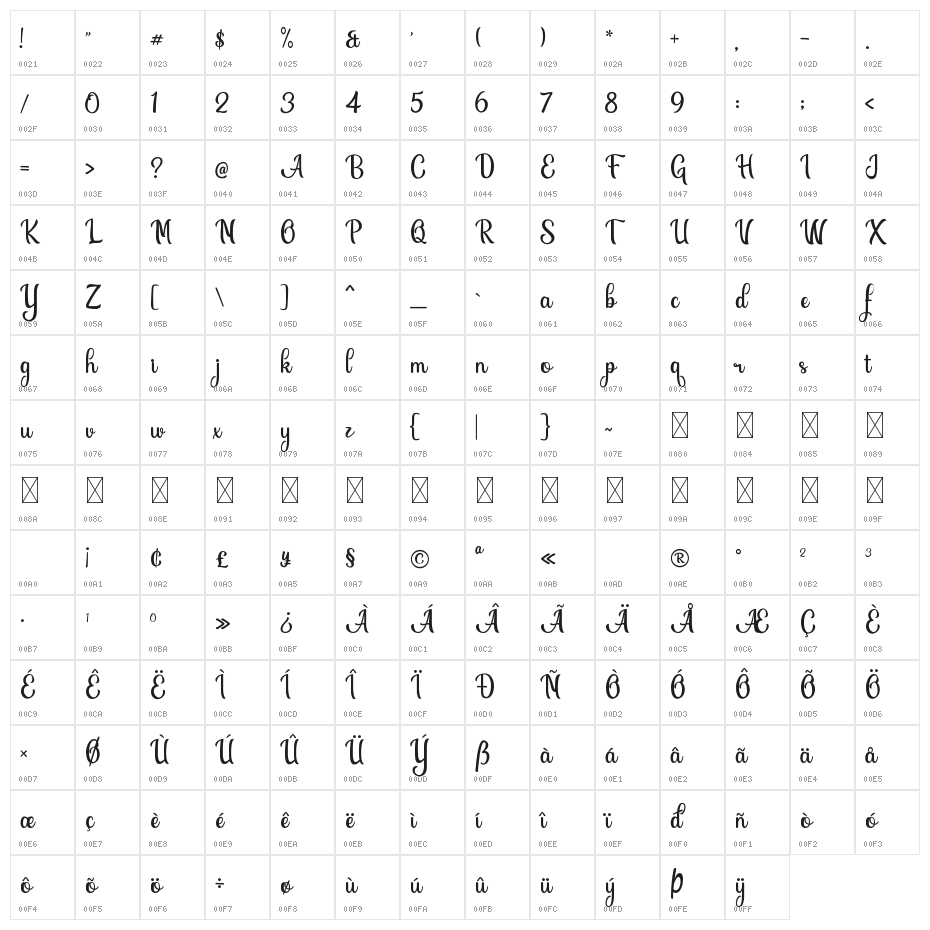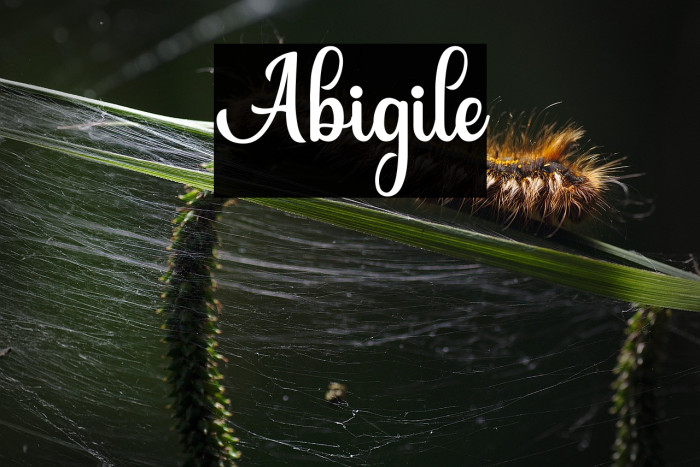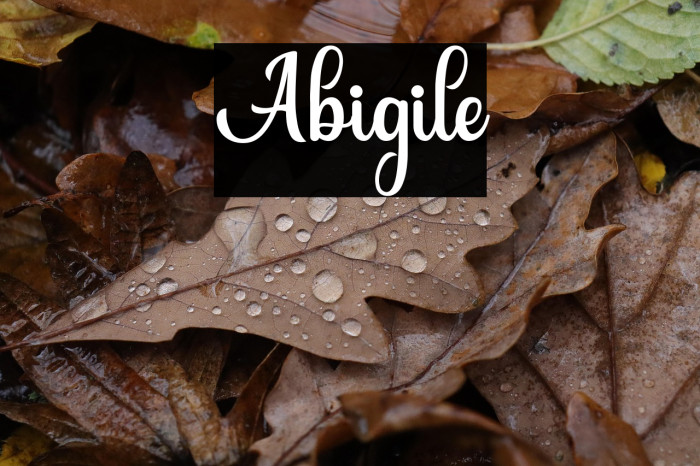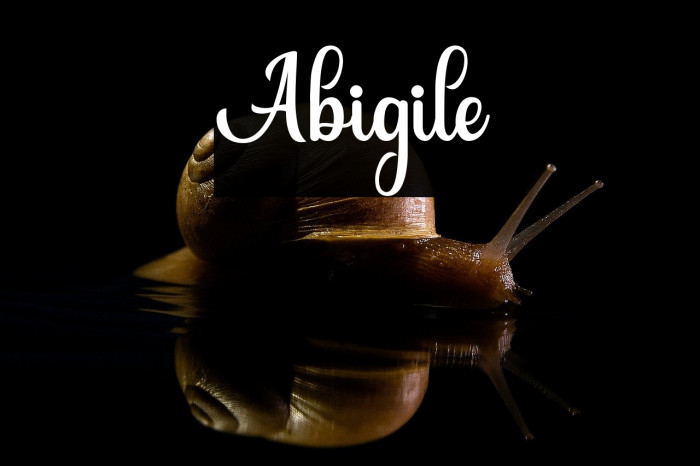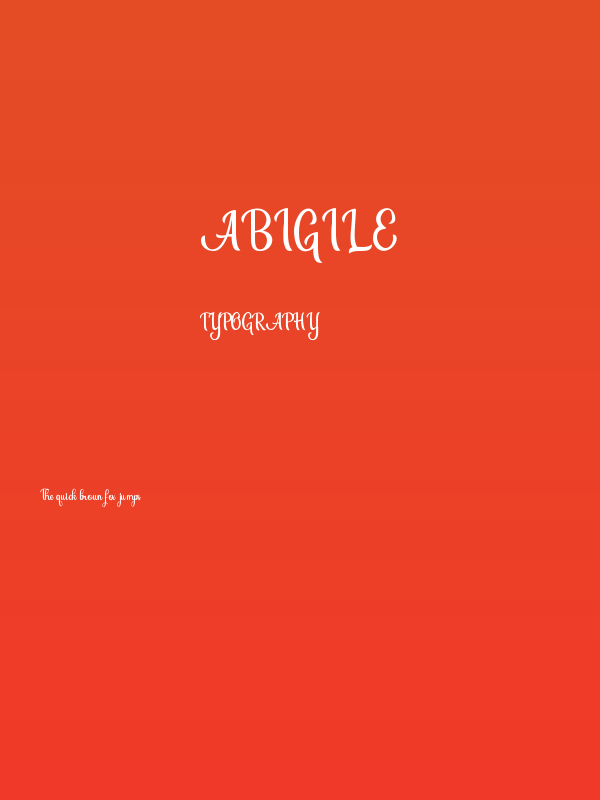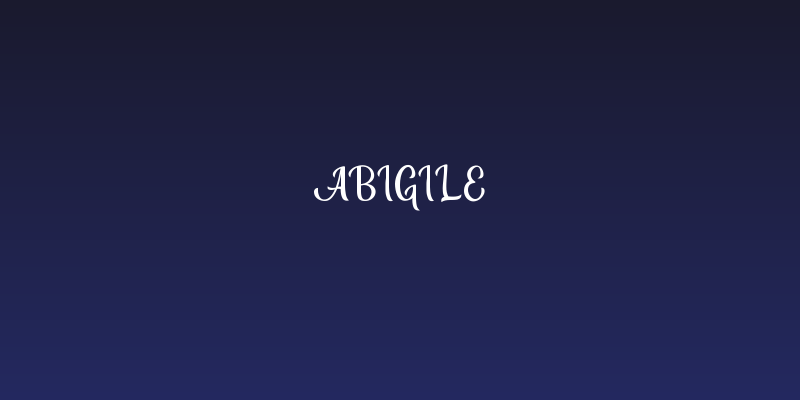
Abigile Font
Abigile Description
This font features a playful and elegant script style with a flowing, cursive design. The uppercase letters are bold and slightly whimsical, with distinctive loops and curves that add a touch of sophistication. The lowercase letters maintain a consistent flow, enhancing readability while retaining a decorative flair. Numbers are clear and well-defined, complementing the overall style. Special characters are creatively integrated, maintaining the font's cohesive look. This font is ideal for projects that require a personal touch, such as invitations, greeting cards, or branding materials.